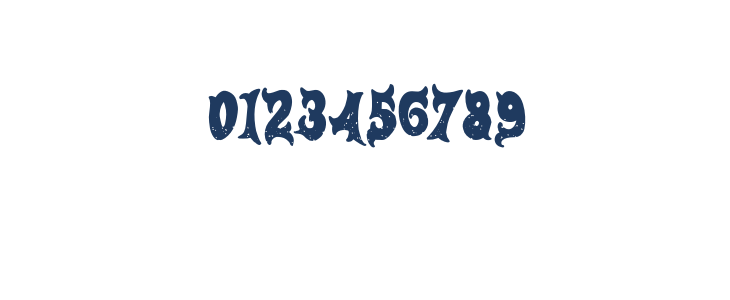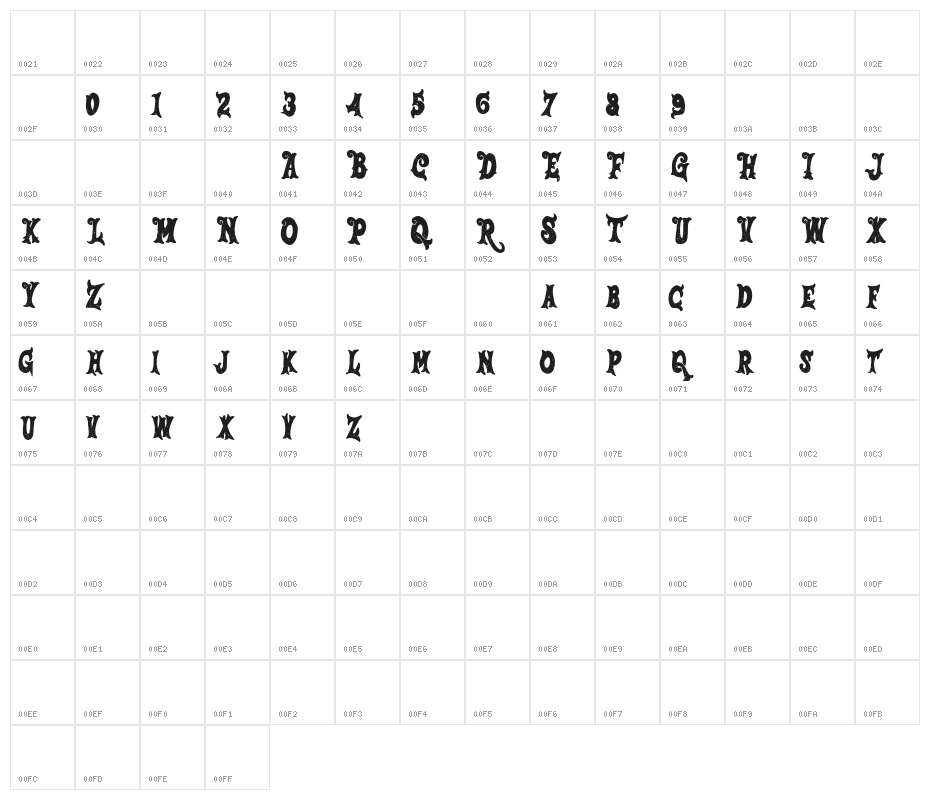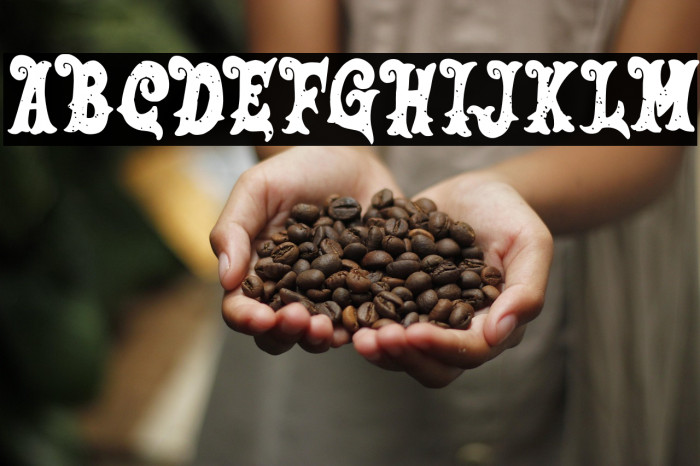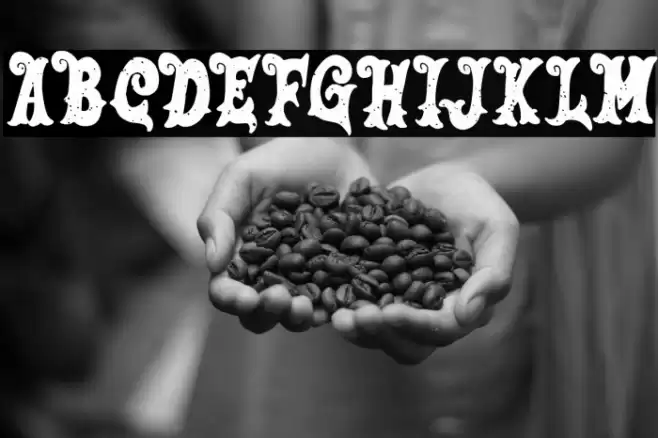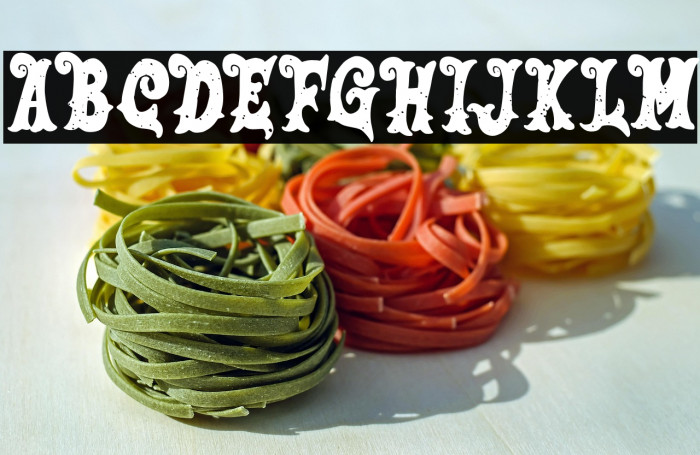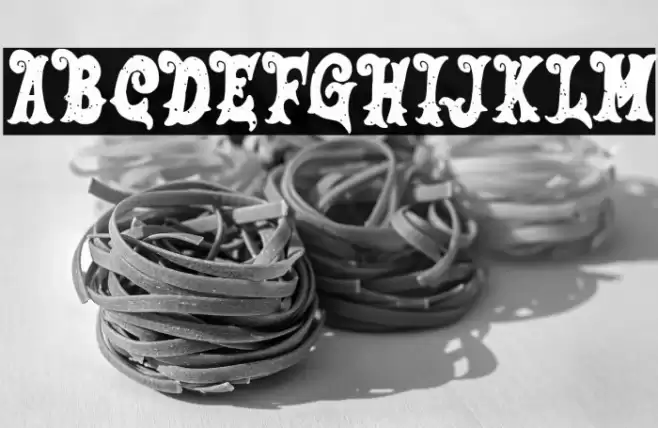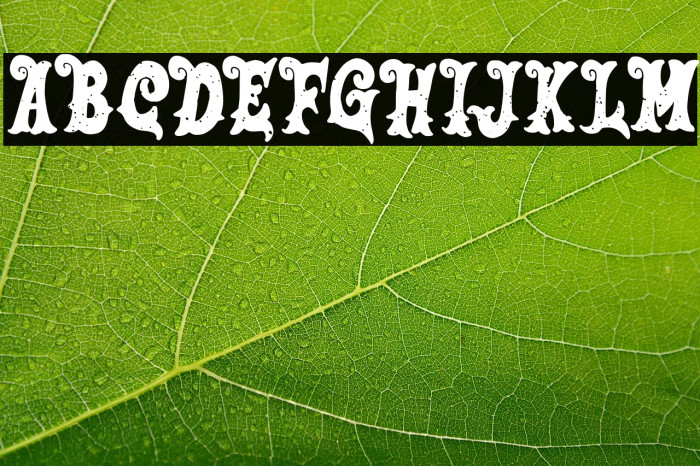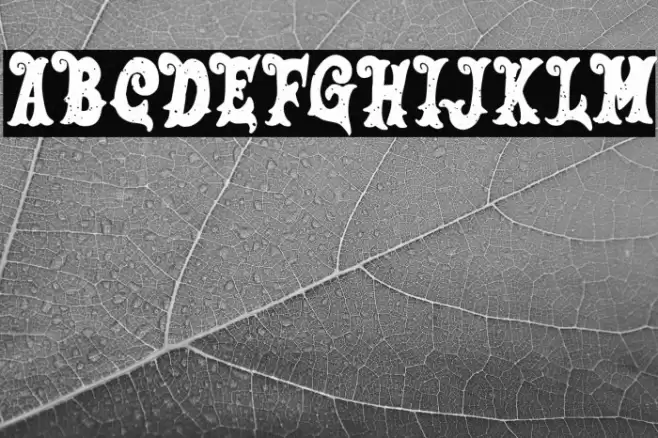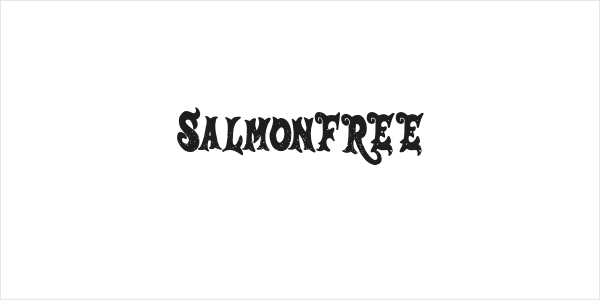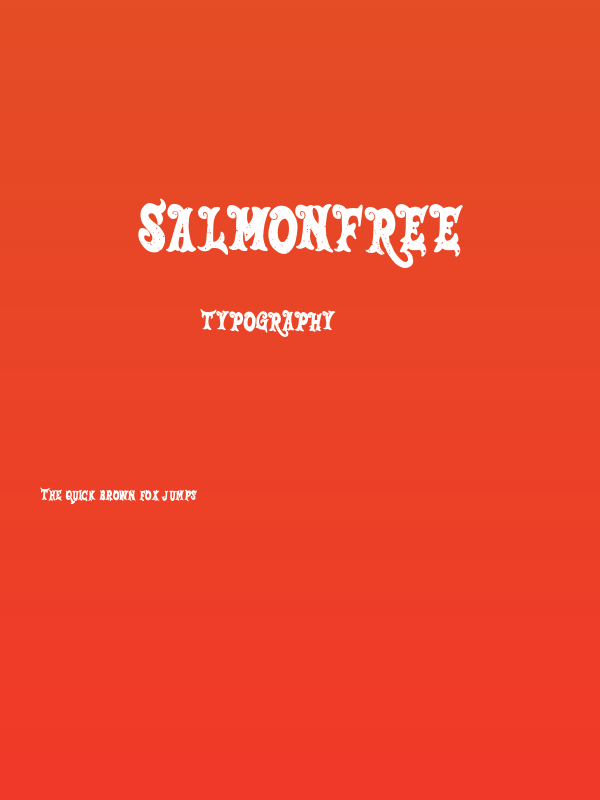
SalmonFREE Font
SalmonFREE Description
This font features a bold and decorative style with a distressed texture, giving it a vintage and rugged appearance. The characters are uniquely designed with exaggerated serifs and a playful, almost whimsical flair. The uppercase and lowercase letters maintain a consistent style, while the numbers and special characters complement the overall aesthetic. The font's boldness and intricate details make it stand out, ideal for projects that require a strong visual impact. Its distressed look adds character and depth, making it suitable for creative and artistic designs.
| Overall Style | Vintage, Decorative |
| Proposed Projects | Ideal for posters, album covers, vintage-themed designs, and branding projects that require a bold statement. |